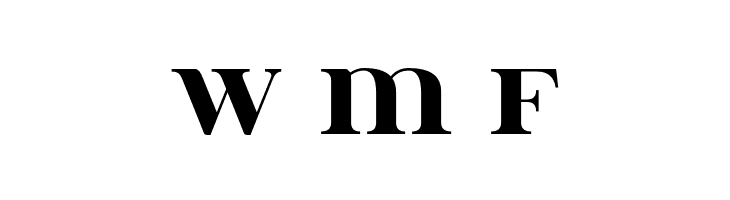
A bold, high-contrast serif font with elegant curves and pronounced serifs.
A bold, serif font with strong, thick strokes and a classic, authoritative style.